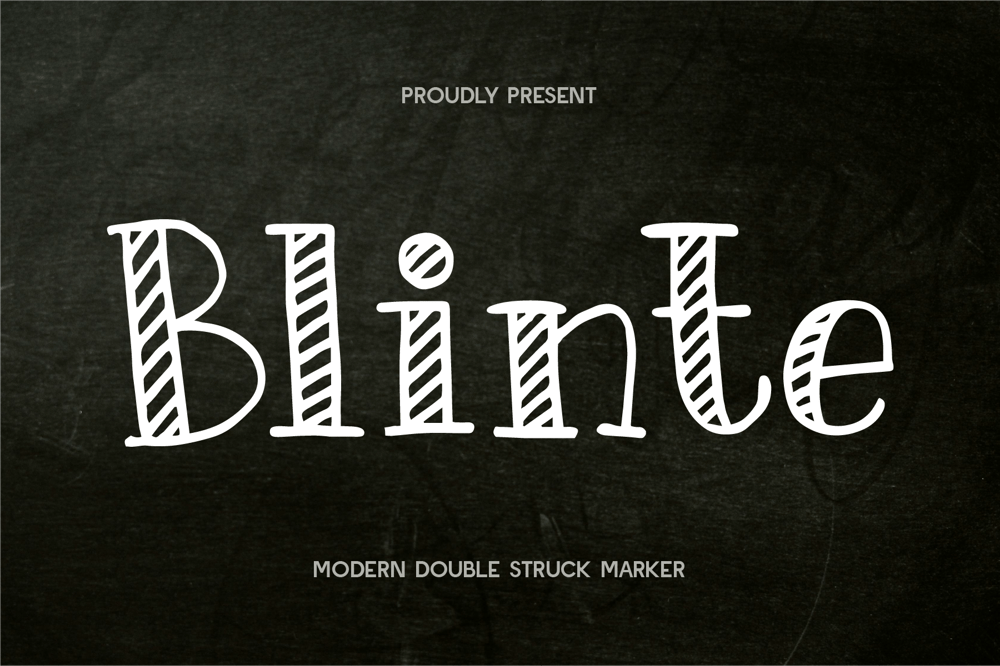
CF Blinte Font Family was designed by Dede Kurniawan and published by Creatifont Studio. CF Blinte contains 2 styles and family package options. Blinte is a captivating modern double-struck marker font that radiates creativity and charm. Its distinct design features bold, outlined letterforms with diagonal hatch fills, giving it a hand-drawn yet polished appearance. The playful and dynamic style makes it a versatile choice for a wide range of design projects, from educational materials to vibrant posters and bold branding. With its unique blend of casual and structured aesthetics, Blinte is perfect for those looking to infuse their projects with energy and originality. Whether you’re creating eye-catching headlines, crafting memorable logos, or adding a touch of whimsy to print designs, Blinte ensures your work stands out. Its modern vibe and artistic flair make it a go-to choice for designers seeking a balance between fun and functionality.A SUMMARY OF WHAT’S INCLUDED:- Standard Character A-Z, a-z, 0-9, Punctuation & symbols- Regular and Italic- Works on PC & Mac- Simple installation- Accessible in Adobe Creative Suite (Ai, Ps, Id, etc.) even work on Microsoft Word.- PUA Encoded Characters – Fully accessible without additional design software.🌟If you come across any issues or notice anything we might have overlooked while using this product, please feel free to reach out to us. We greatly value your feedback as it helps us enhance and refine our products. Thank you!